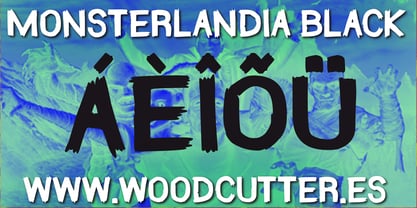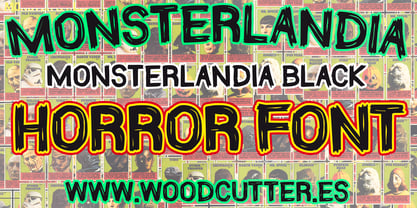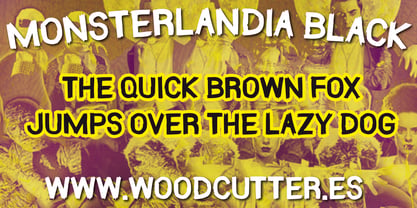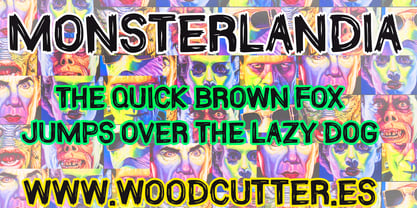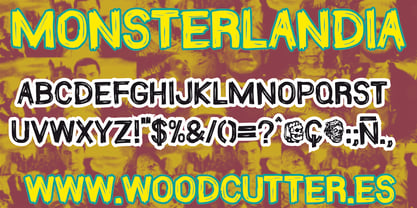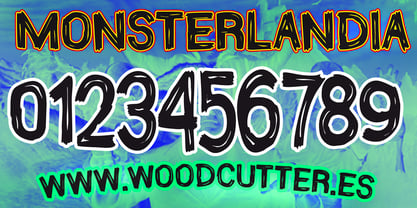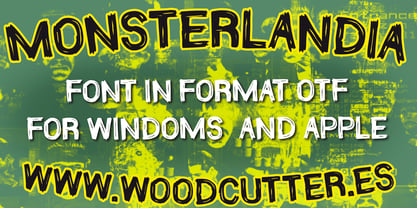
Monsterlandia
by Woodcutter
MONSTERLANDIA is a type family in uppercase with accents, designed in the raw spirit of horror pulp magazines, with a striped, terrifying, and dramatically expressive look. Each letter feels violently etched into a worn surface, radiating tension and delivering a distinctly horrific aesthetic, perfect for movie posters, horror comic covers, Halloween-themed designs, or any title that demands visual fear and energy. The striped texture recalls the classic horror visuals of the 1950s and 60s, where graphic terror met wild imagination.
The font family includes two styles: the original MONSTERLANDIA, with striped, intense letters, and MONSTERLANDIA BLACK, a fully solid black version that enhances visual impact with raw strength. Both maintain a grotesque, irregular, and purposefully imperfect form, emphasizing the pulp drama that defines the family.
Ideal for gritty graphic design, eerie covers, fanzines, horror branding, or any creative project seeking to provoke a visceral reaction, MONSTERLANDIA is wild, unapologetic, and iconic. Its fierce personality makes it the perfect tool for creators looking to bend or break visual norms.
Designers: Jordi Manero
Foundry: Woodcutter